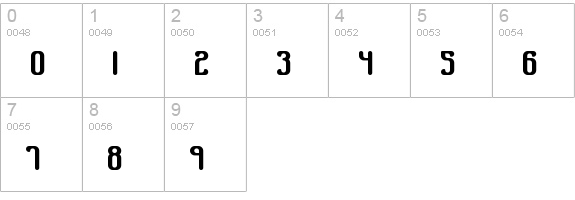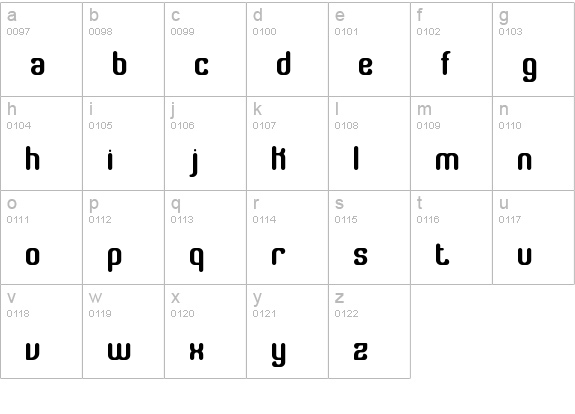
Gather BRK Font Details
Gather BRK font is a stunning display typeface that exudes elegance and sophistication. With its unique blend of sharp lines and flowing curves, this font is perfect for adding a touch of class to any design project. Whether you're creating invitations, logos, or branding materials, Gather BRK font will make your text stand out with its distinct style. The best part? Gather BRK font is completely free to use! That's right, you can download this beautiful font at FontsMarket.com without spending a dime. So why wait? Elevate your designs with Gather BRK font today and make a lasting impression with its timeless appeal.